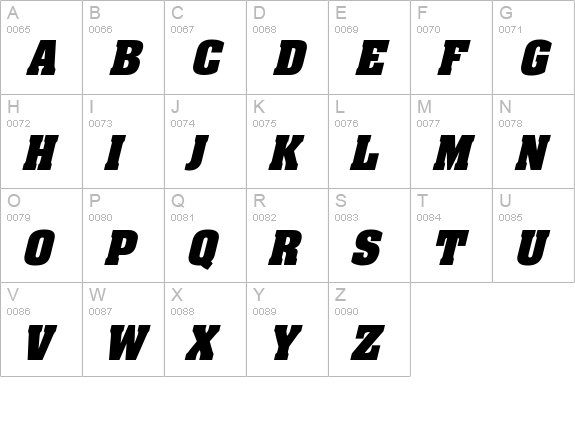
AaronBoldExpd Italic Font Details
AaronBoldExpd Italic is a distinctive, italic variant in the AaronBoldExpd typeface family \xE2\x80\x94 well suited to design and typography projects.
Introducing AaronBoldExpd Italic, the perfect blend of boldness and elegance. This striking font showcases a unique combination of strong, bold lines and sleek, italic curves, making it a standout choice for any design project. With its confident and contemporary appearance, AaronBoldExpd Italic effortlessly commands attention and adds a touch of sophistication to any text. Whether you're designing a logo, creating eye-catching headlines, or crafting a stylish invitation, this font will make a lasting impression. One of the best things about AaronBoldExpd Italic is that it is available for free! That's right, you can freely download this exceptional font at FontsMarket.com. This means that you can enhance your designs without worrying about breaking the bank. So, why wait? Elevate your design game with AaronBoldExpd Italic, a font that combines boldness and elegance in a truly captivating way. Download it for free today at FontsMarket.com and let your creativity take flight.